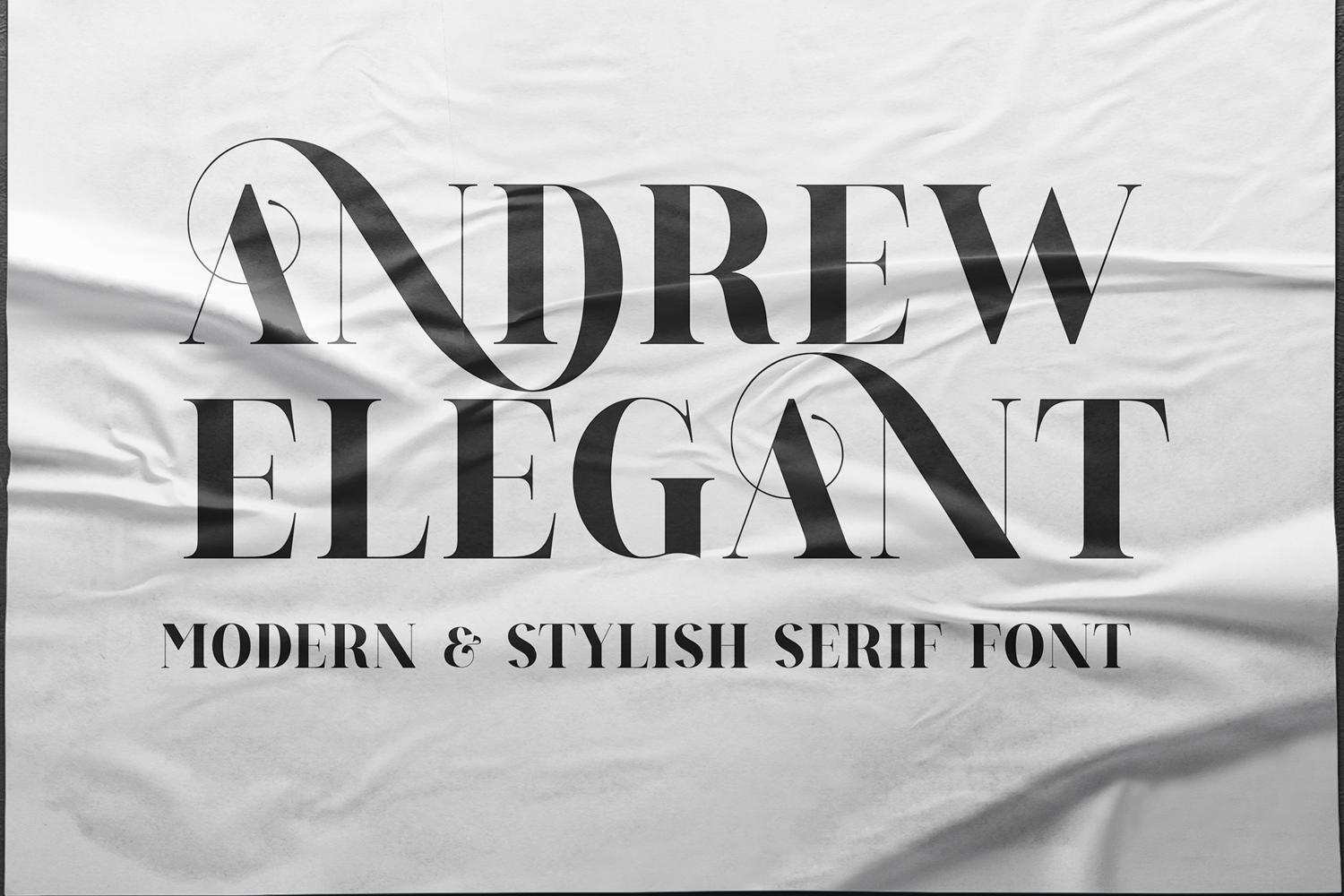
Andrew Elegant Font Description
Andrew Elegant is a modern and vintage serif font with lots of alternatives that will bring a touch of classic and modern style to your projects. It is recommended for logotypes, branding, wedding monograms and invitations, blog headlines, and much more.